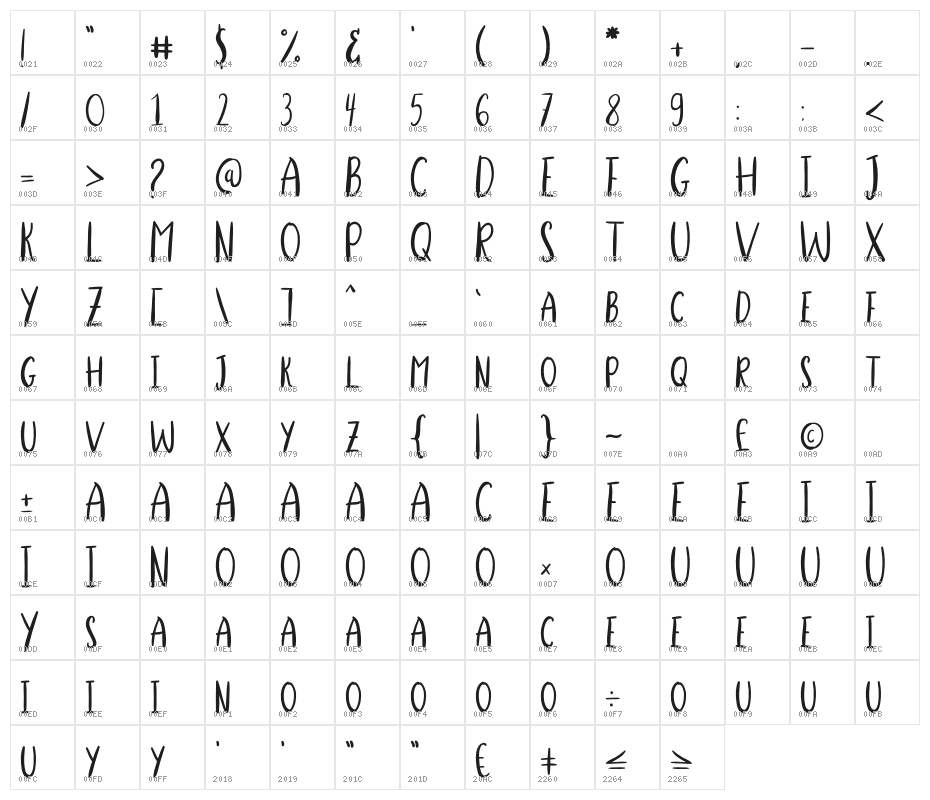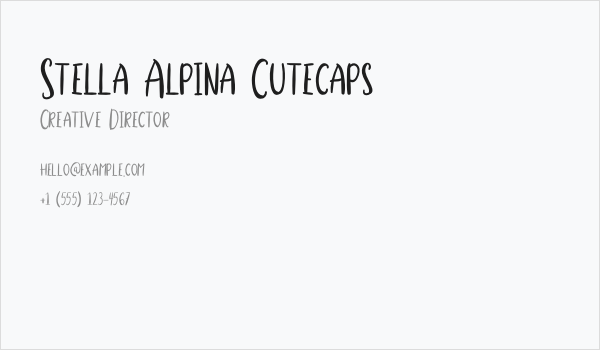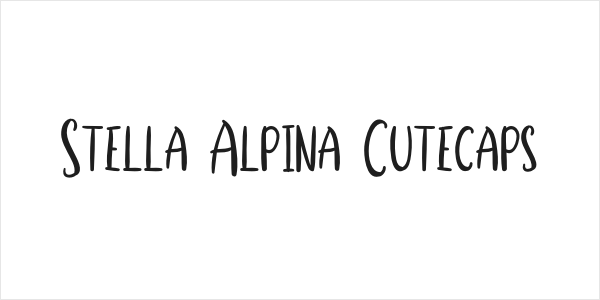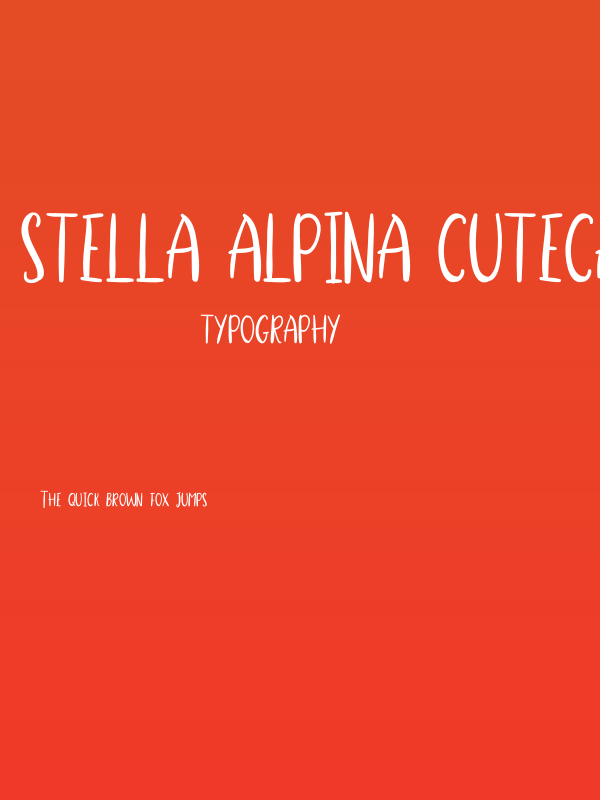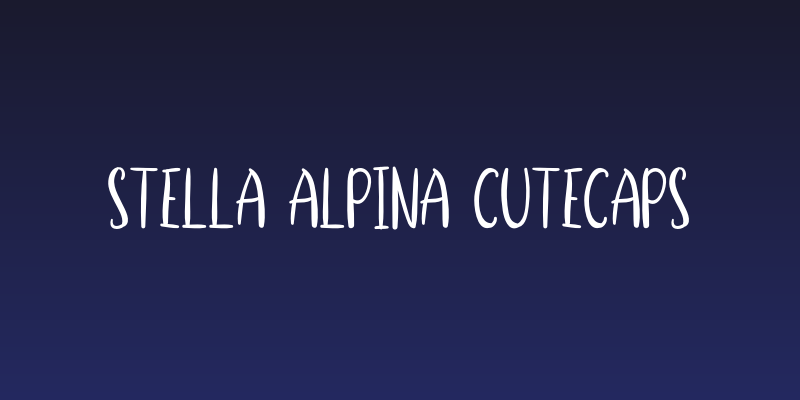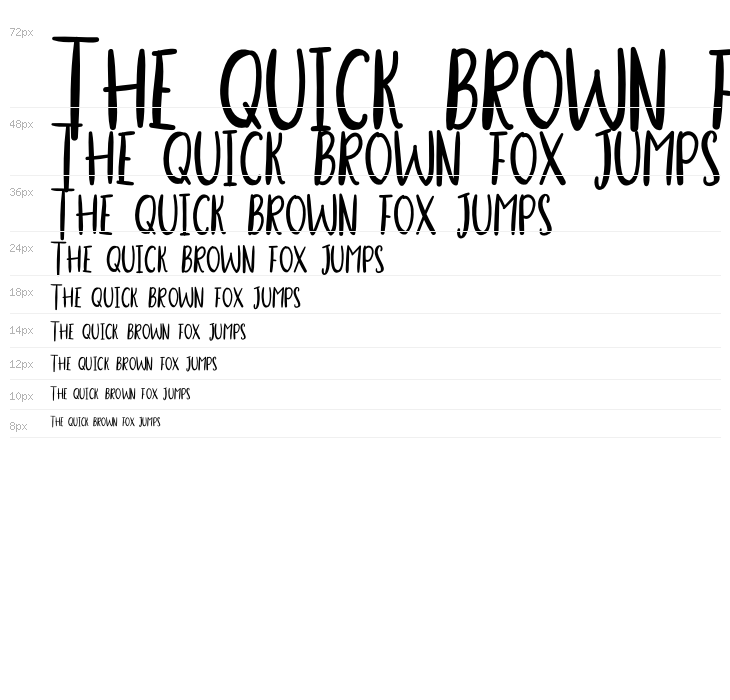
Stella Alpina Cutecaps Font
Stella Alpina Cutecaps Description
This playful and whimsical font features tall, narrow characters with a hand-drawn aesthetic. The strokes are smooth and slightly irregular, giving it a casual and friendly appearance. The uppercase and lowercase letters maintain a consistent style, with rounded edges and a slight slant that adds to the informal feel. The numbers and special characters are designed to match the overall playful theme, making them suitable for creative projects. The font's unique style makes it stand out, while still being legible and versatile for various uses.
| Proposed Projects | Ideal for children's books, greeting cards, playful branding, and creative posters. |